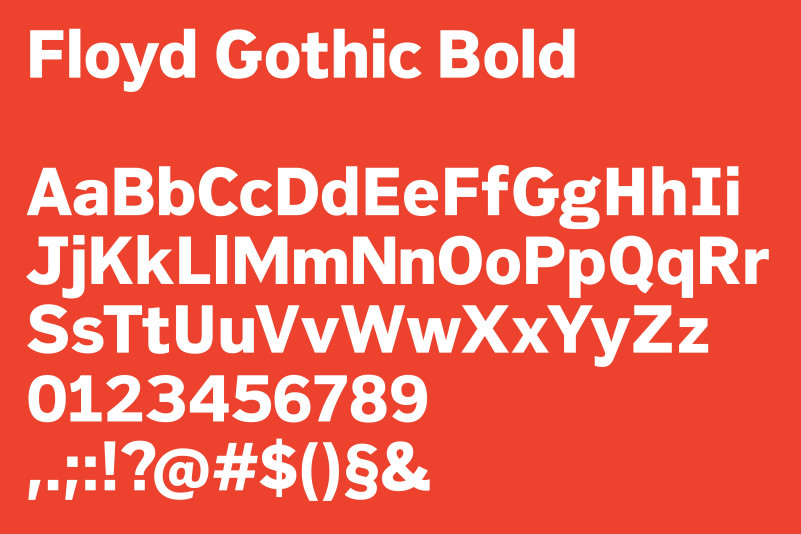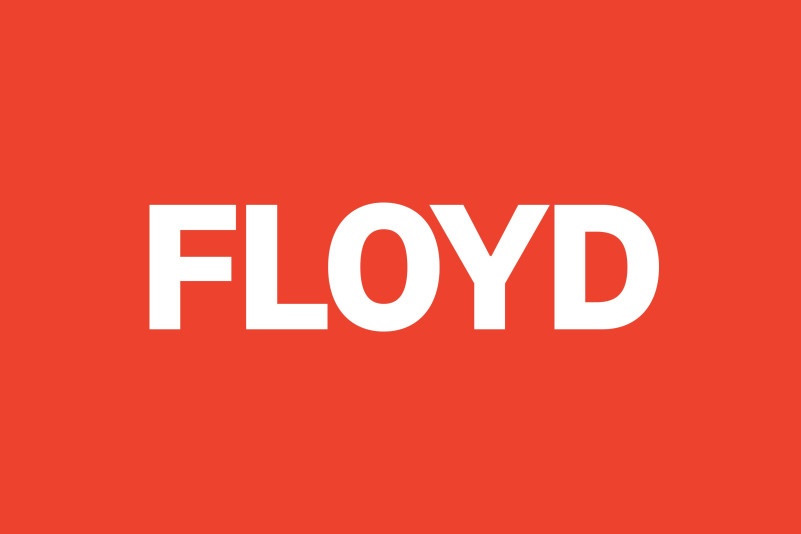
Floyd Font
Floyd Sans Serif Font, It can easily be matched to an incredibly large set of projects, so add it to your creative ideas and notice how it makes them stand out!
Floyd is a modern furniture company with products that look good and last. The identity is focused around a custom typeface I drew. The typeface, representing the company’s Rust Belt heritage, is a drawn from the letters of an old steel factory sign where the founders’ grandfather worked.